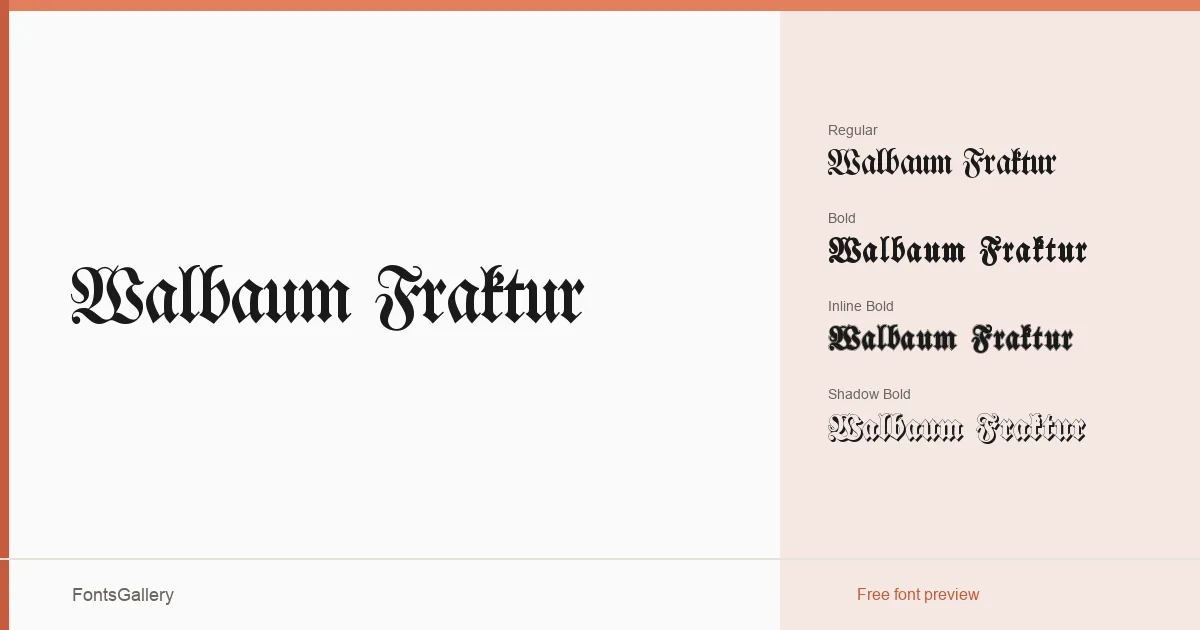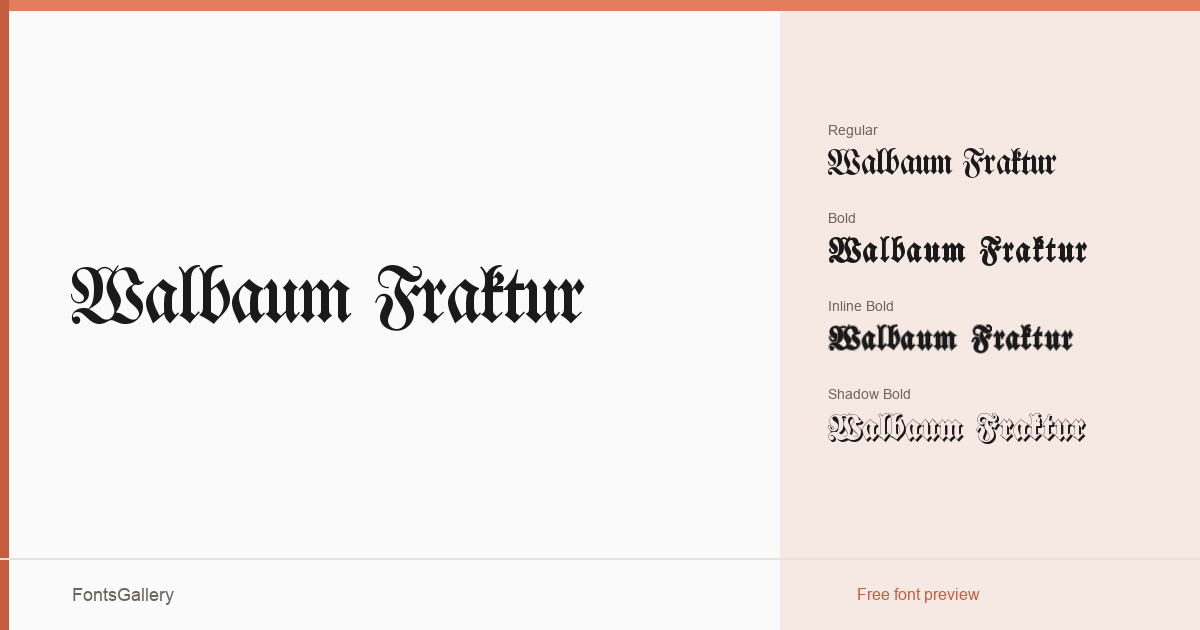
About Walbaum Fraktur Font
Walbaum Fraktur is a distinguished blackletter typeface designed by Dieter Steffmann and published through Typographer Mediengestaltung. Rooted in the rich tradition of Fraktur typography, it carries an air of timeless elegance and bold classical authority. Its vintage character makes it a compelling choice for designers seeking a typeface with genuine historical gravitas.
As a blackletter typeface, Walbaum Fraktur features the intricate, angular letterforms and dramatic thick-to-thin stroke contrasts that define the classic Fraktur style. Its elegant yet bold construction strikes a balance between ornate vintage charm and strong visual presence. The carefully crafted characters exude a classic sophistication that feels both authoritative and refined.
Walbaum Fraktur is ideally suited for high-impact applications such as logos, posters, branding materials, t-shirt designs, and certificates where a bold, vintage aesthetic is desired. Its commanding presence ensures strong visual communication across both print and apparel contexts. It pairs effectively with the clean neutrality of Helvetica or the distinctive character of Aresink for a balanced typographic composition.